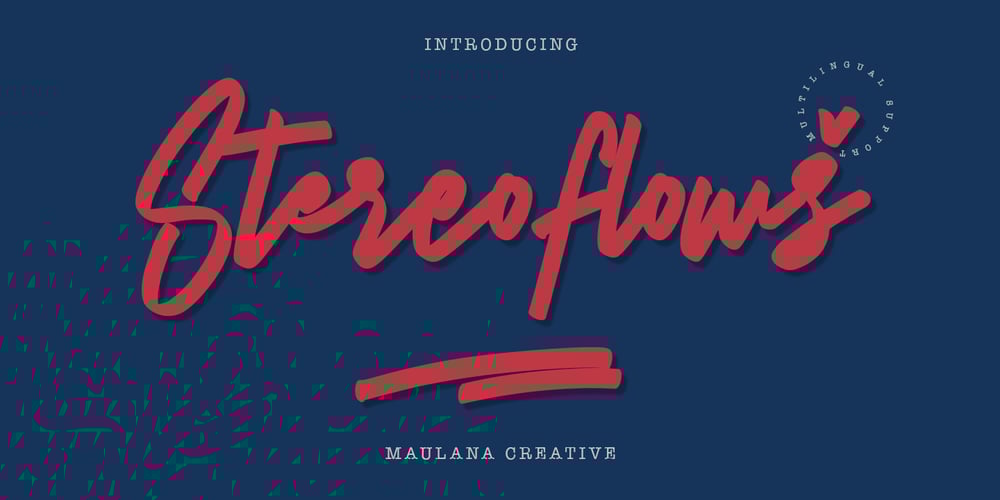
Stereoflows Font Family was designed by Gilang Maulana and published by Maulana Creative. Stereoflows contains 1 styles and family package options. Give your designs an authentic handcrafted feel. � Stereoflows� is perfectly suited to stationery, logos and much more.Many Thanks!